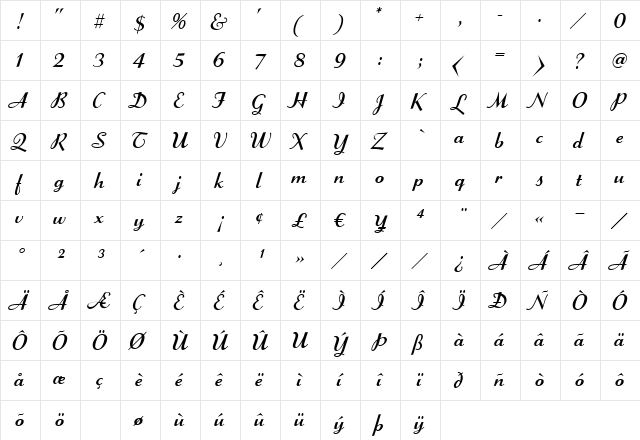
Swizzle Script Regular
Design Context for Swizzle Script Typeface
Swizzle Script flows with the natural rhythm of handwritten lettering, making it ideal for designs that call for warmth and personal expression.
Font Pairing: Combine Swizzle Script with a simple geometric sans for maximum contrast — the tension between flowing curves and clean structure is a classic typographic pairing.
Pro Tip: Pair Swizzle Script with a clean sans-serif for supporting text. The contrast between fluid script and geometric structure creates an elegant typographic hierarchy.